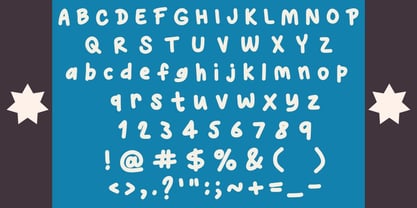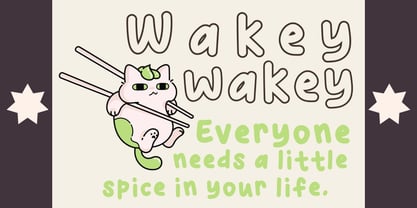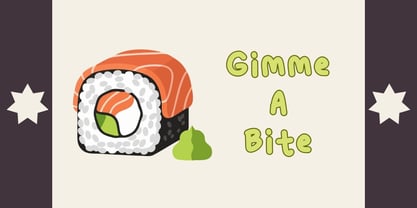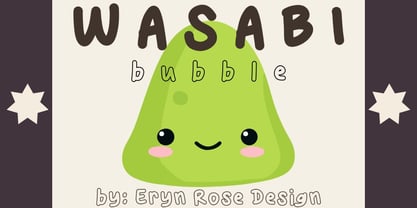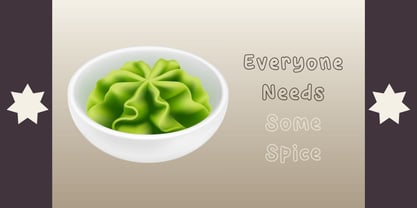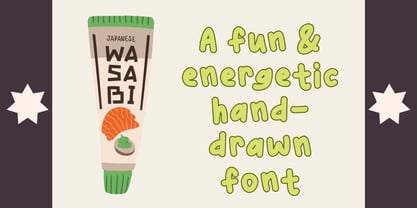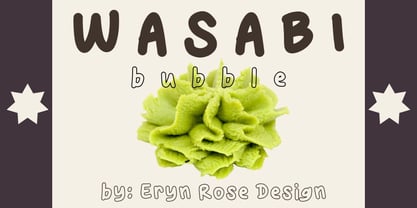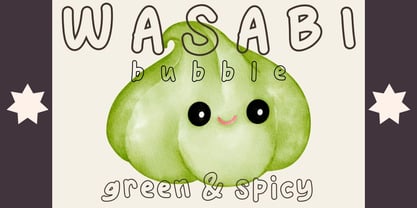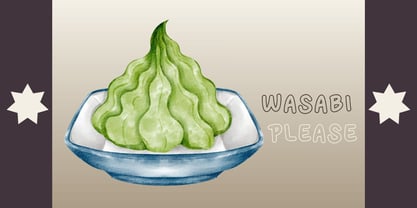
Wasabi Bubble
La famille de polices Wasabi Bubble a été conçue par Eryn Rose Tomlinson et publiée par Eryn Rose Design. Wasabi Bubble contient 1 styles. En savoir plus sur cette famille
Wasabi Bubble is a clean, hand-drawn font that embodies a modern bubbly aesthetic. Infused with a lively spirit, this typeface adds a touch of excitement to your designs. It features a classic bubble letter style, retaining the charming imperfections that make handmade typography so captivating. Versatile in its application, Wasabi Bubble can be used in outline mode, with shadows, in neon styles, or adjusted in size to fit your needs. As a standout Display font, it excels in event and poster design, logo creation, and trendy merchandise branding. With Wasabi, your creative projects are sure to shine!
Eryn Rose, a graduate of the Rhode Island School of Design, is a multifaceted artist specializing in illustration, graphic design, and type design. She skillfully blends modern and classic typography, leveraging her fine art and design expertise. Each piece of her typography is unique, ensuring that it cannot be replicated or found elsewhere. Eryn's typography is artfully crafted, infusing warmth into her designs that only a human touch can provide. Her work resonates across various industries, including editorial, tech, and retail, setting her apart in the competitive market with her signature style and design philosophy.